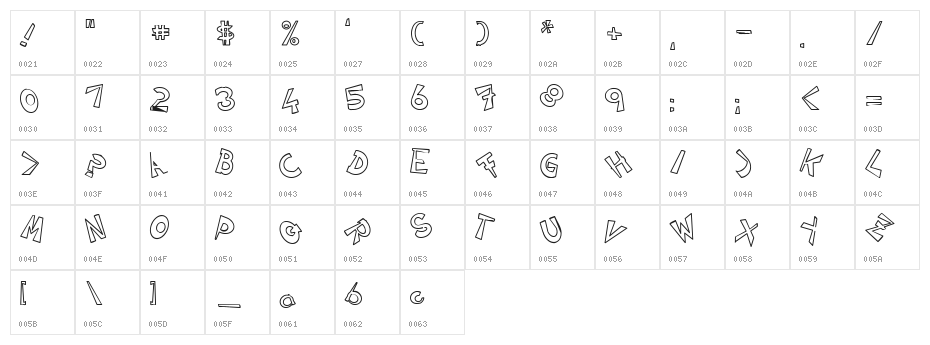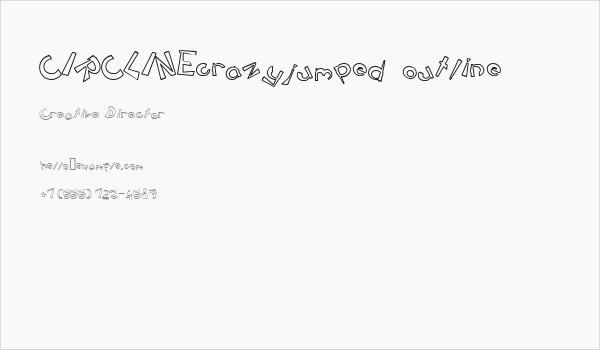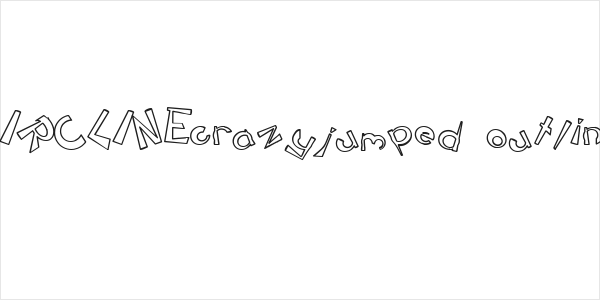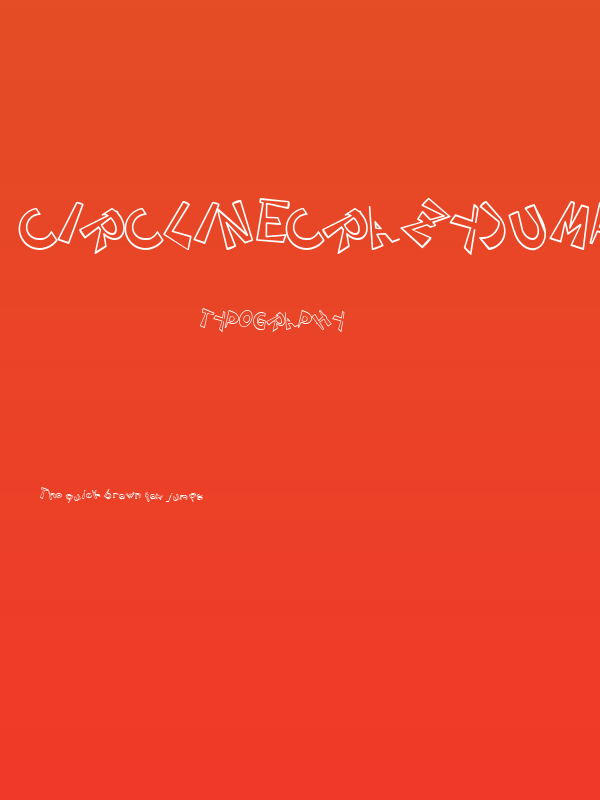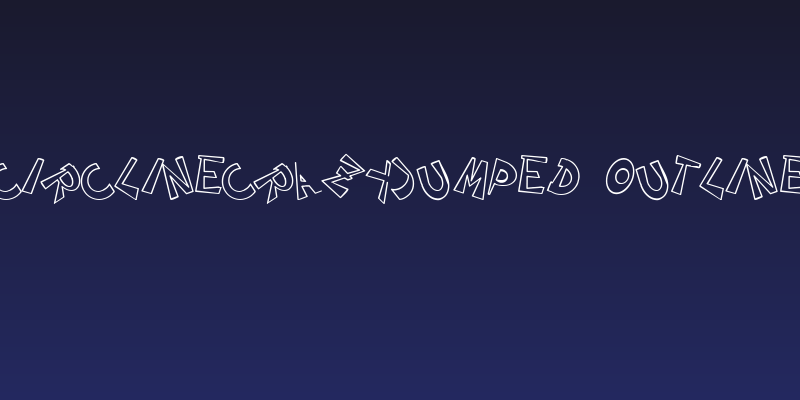
CIRCLINEcrazyjumped outline Font
CIRCLINEcrazyjumped outline Description
This font features a playful and dynamic outline style, with each character exhibiting a unique, hand-drawn appearance. The letters are irregular and slightly tilted, giving them a whimsical and energetic feel. The outline design adds a layer of depth and creativity, making it stand out in any design. The characters are bold and have a cartoonish quality, which enhances their visual appeal. The font includes a full set of uppercase and lowercase letters, numbers, and a variety of special characters, all maintaining the same lively and quirky style.
| Proposed Projects | Ideal for children's book covers, playful branding, creative posters, and fun social media graphics. |